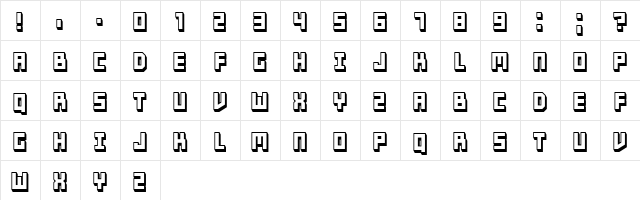
Tricks Hollow Regular Free Font
Tricks Hollow Regular
Tricks Hollow Family
Design Context for Tricks Hollow
Tricks Hollow is a composed and adaptable typeface that performs quietly and consistently across a wide range of design contexts.